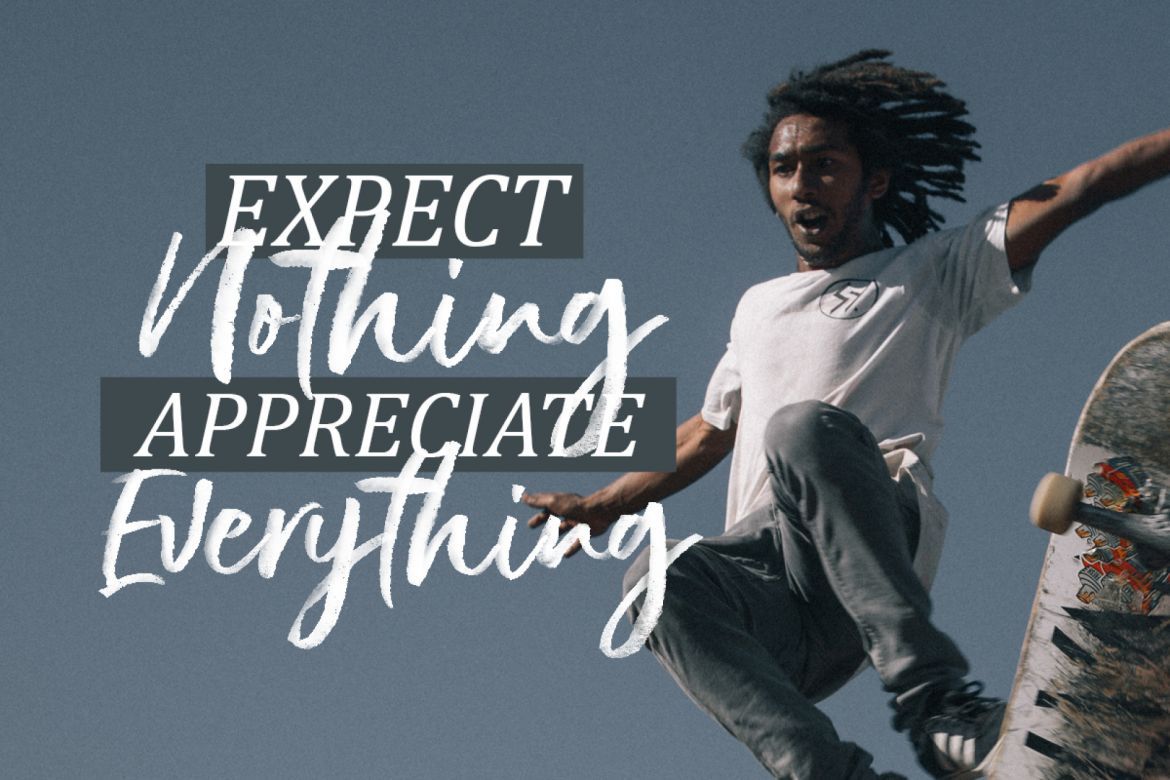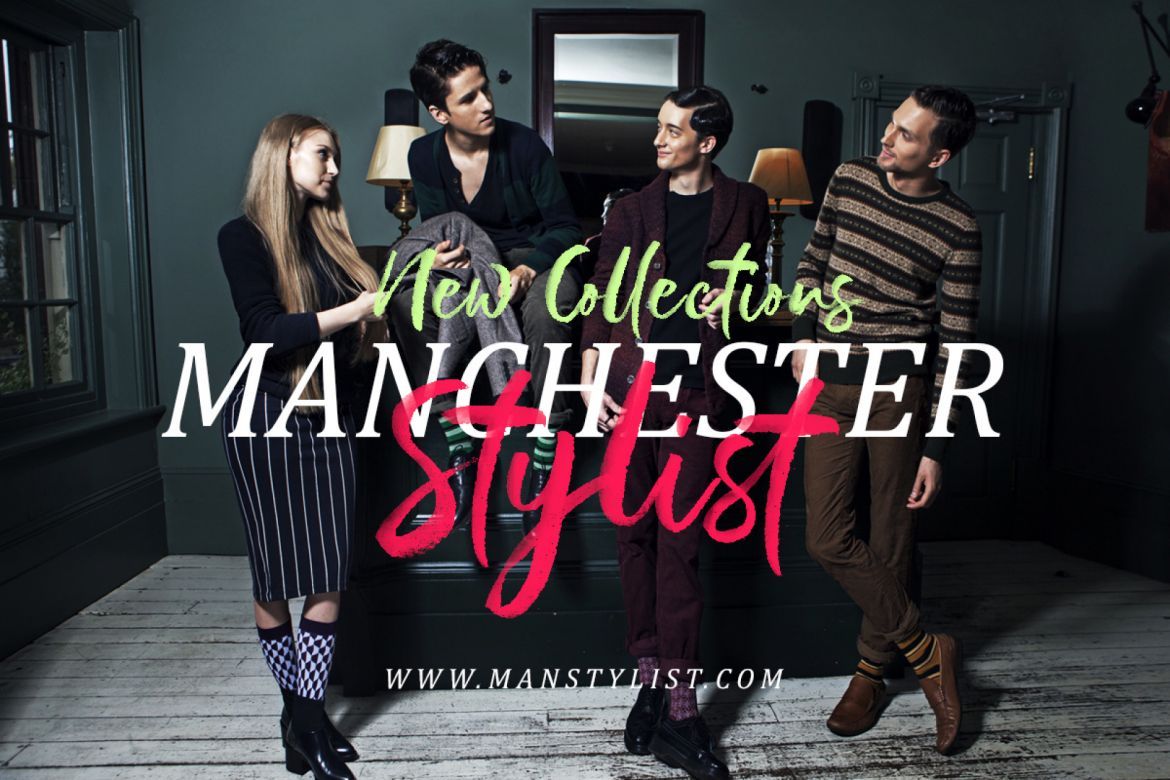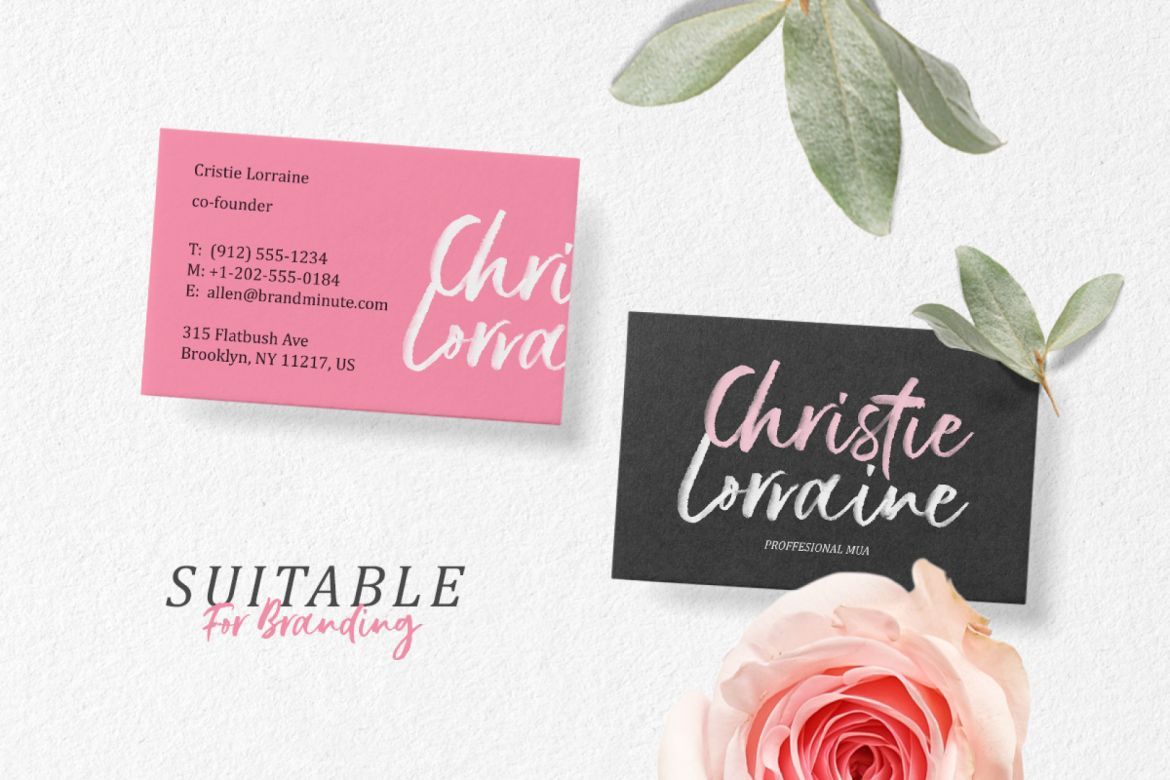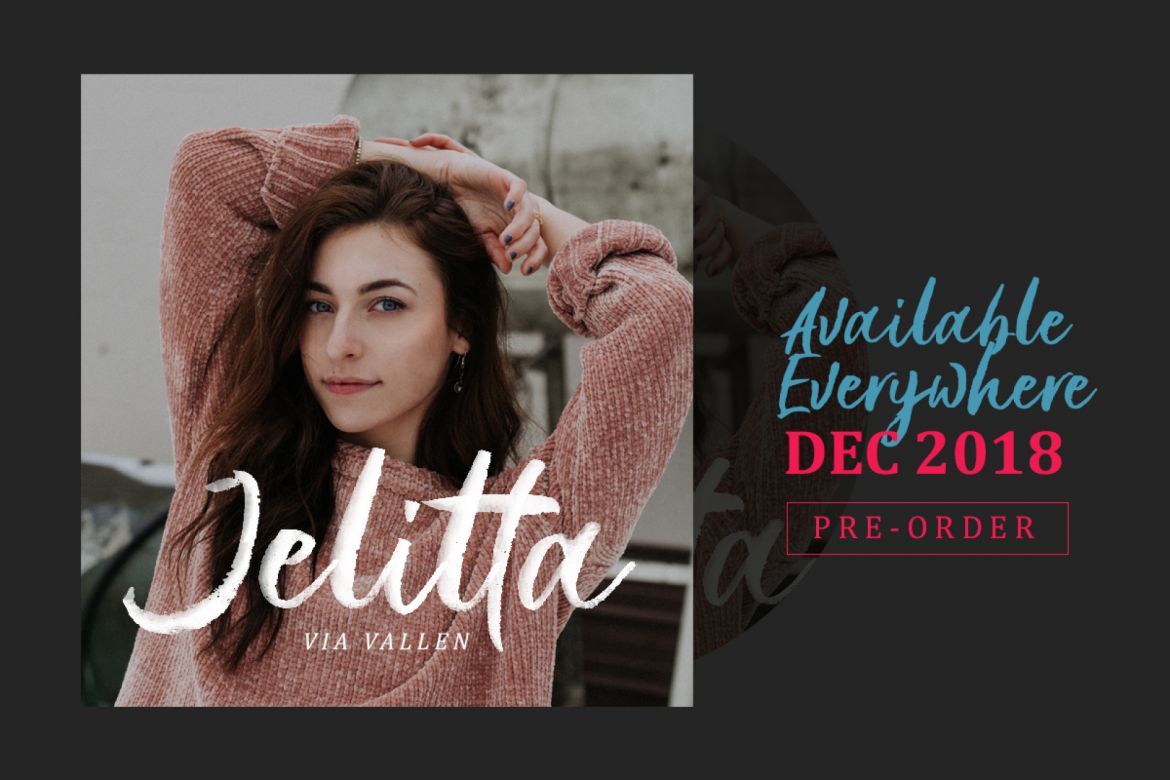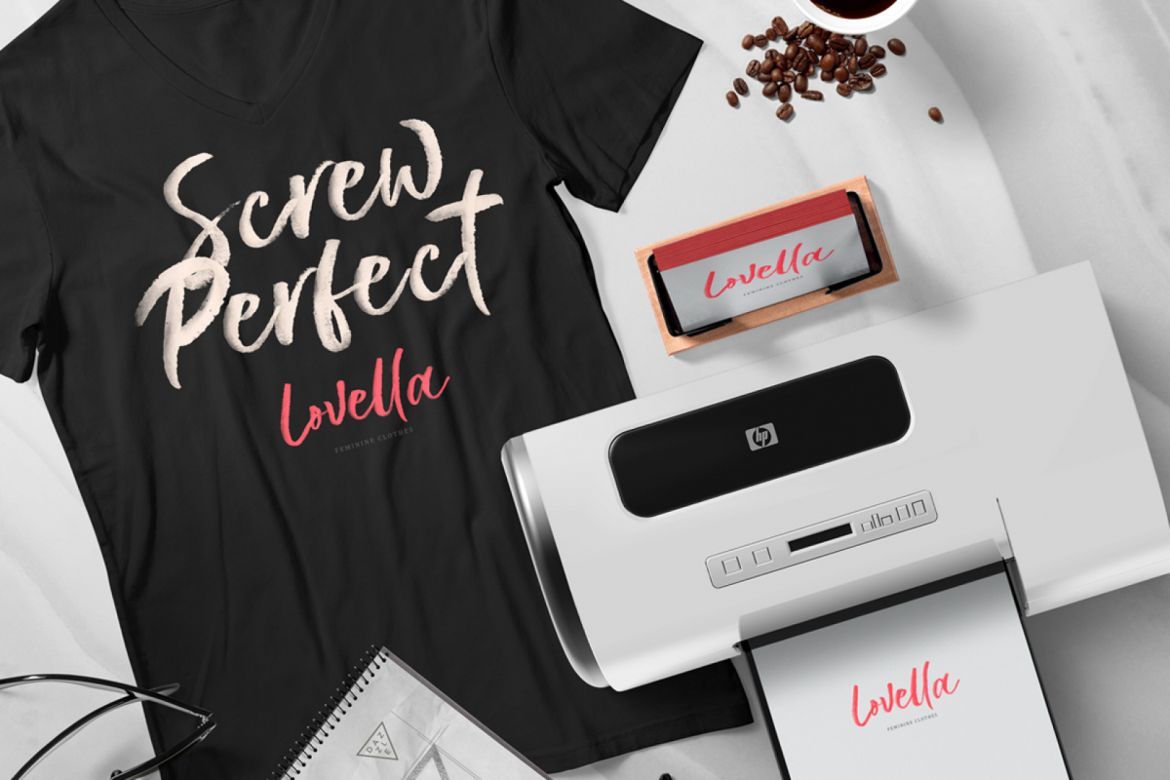
Gustolle SVG Font
• suitable for those of you who need fonts for titles, logos, clothing, invitations, branding, packaging, advertisements, etc.
• the font looks good for feminine or masculine nuances.